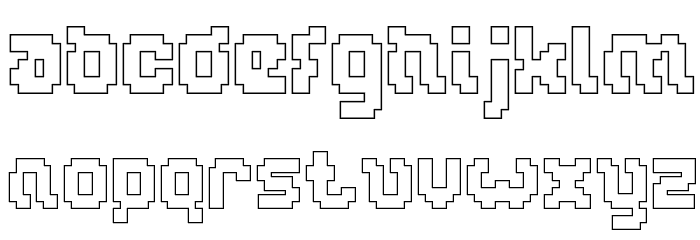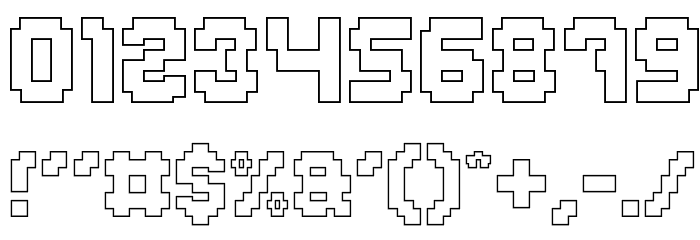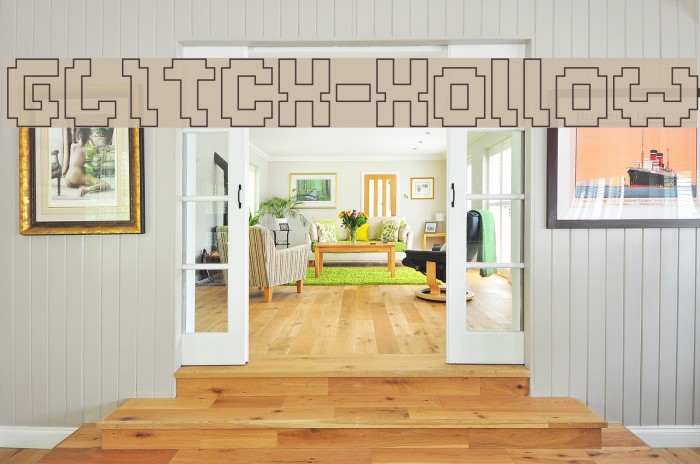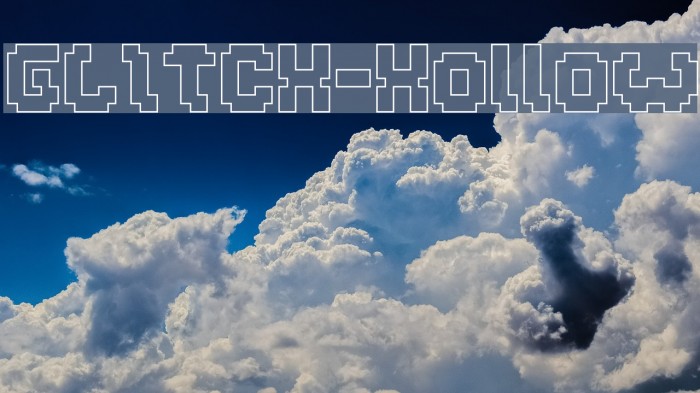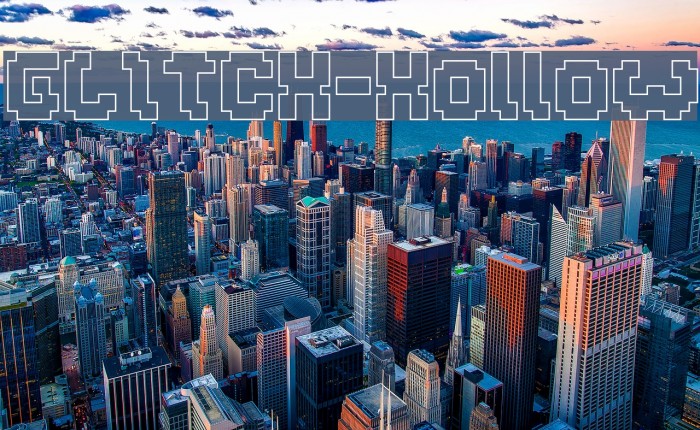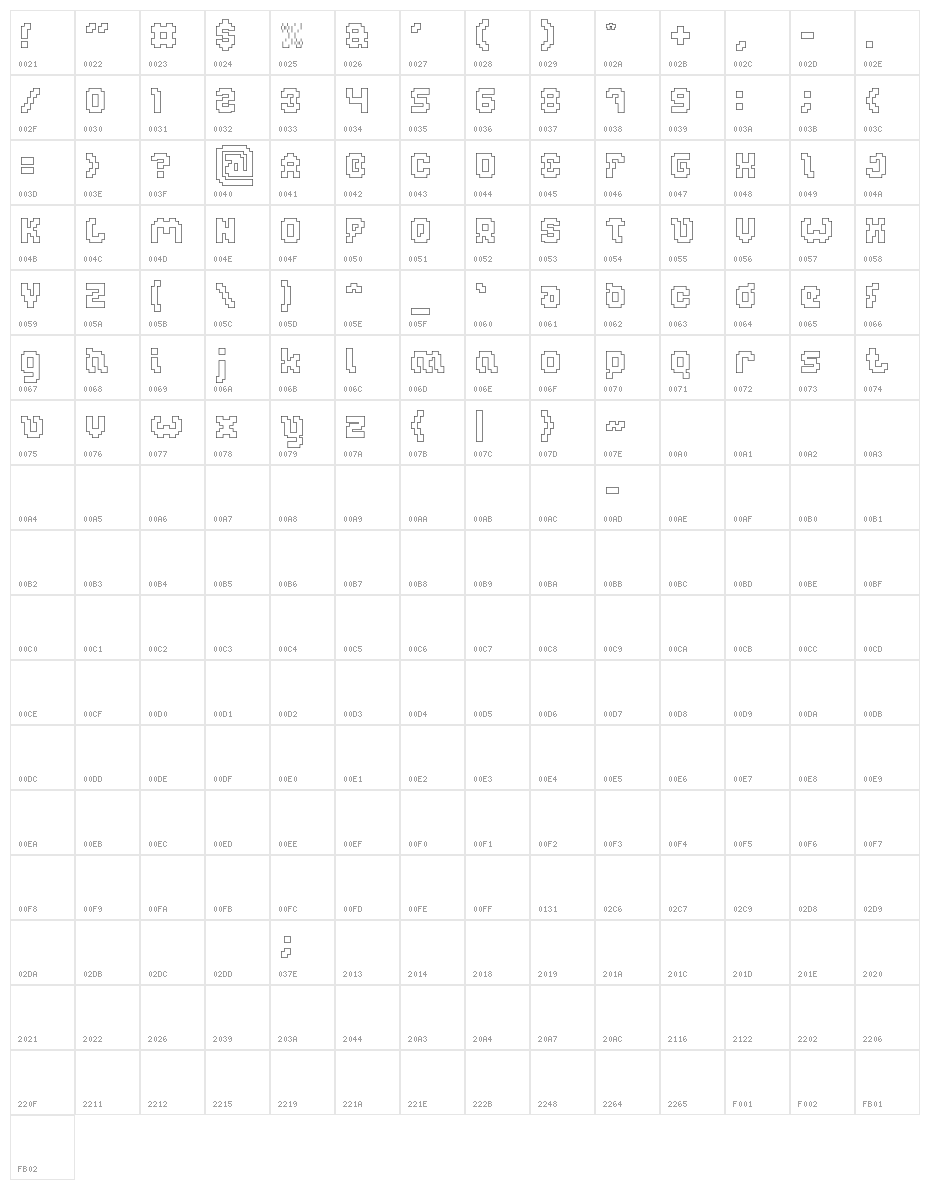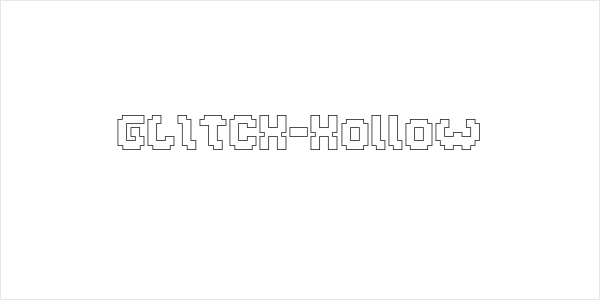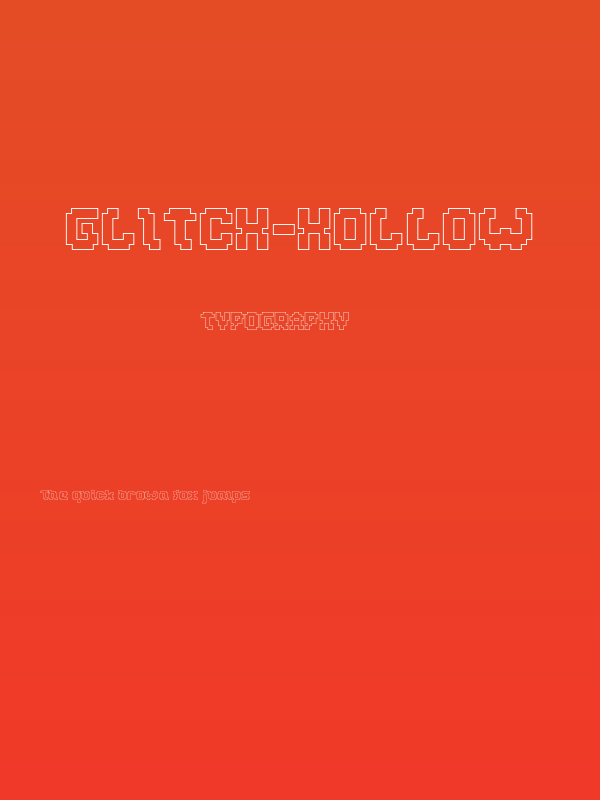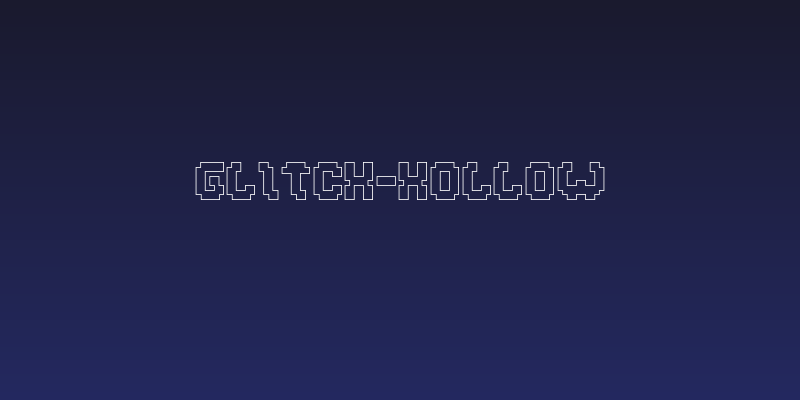
GLITCH-Hollow Font
This font features a unique, hollow design with a pixelated, glitch-like appearance. Each character is outlined with a consistent thickness, creating a digital, retro aesthetic reminiscent of early video games or computer graphics. The geometric shapes and sharp angles give it a distinct, edgy look. The uppercase and lowercase letters maintain a uniform style, with numbers and special characters following the same design principles. This font's hollow nature allows for creative use of background colors or textures to show through, enhancing its visual impact.
A pixelated, hollow font with a glitchy, retro digital style.
- Proposed Projects: Ideal for video game titles, tech-themed posters, digital art projects, and any design requiring a retro or digital aesthetic.
- Overall Style: Modern, Retro, Digital